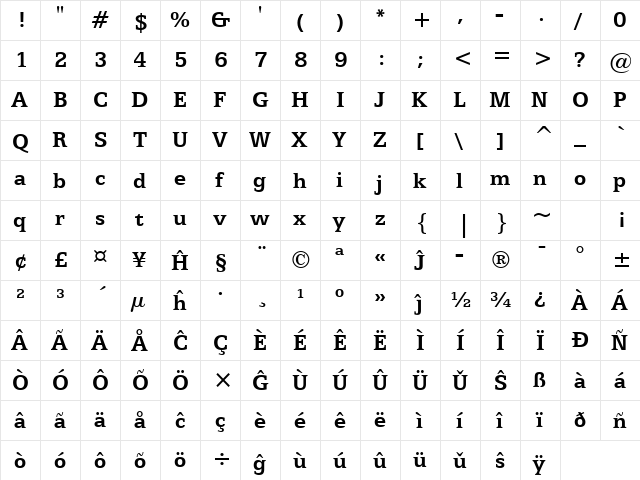
Egyptian505 BT Eo Bold
Design Context for Egyptian505 BT Eo Typeface
Egyptian505 BT Eo combines the readability of serif typography with the visual weight of a slab construction, resulting in a typeface that feels both authoritative and approachable. Its bold stroke weight gives it real presence on the page.
Works well in editorial design, news publishing, impactful branding, and poster typography.
Pro Tip: Try Egyptian505 BT Eo set tight in headlines for a classic editorial feel. Its slab serifs create strong horizontal rhythm that anchors a page layout.